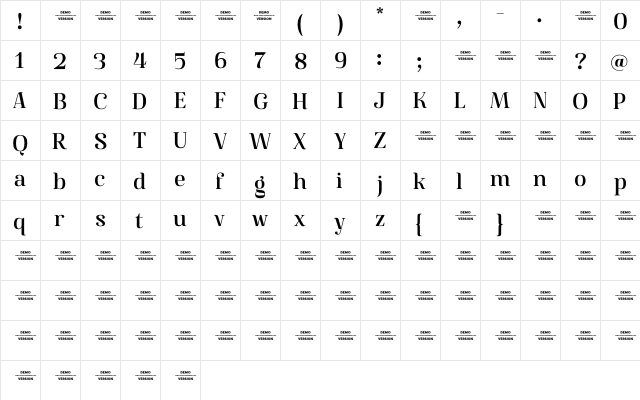
Famosa Bold Demo
Design Context for Famosa Typeface
Famosa offers clean, dependable letterforms without strong stylistic allegiance, making it a practical choice for designers who need flexibility. Its bold stroke weight gives it real presence on the page.